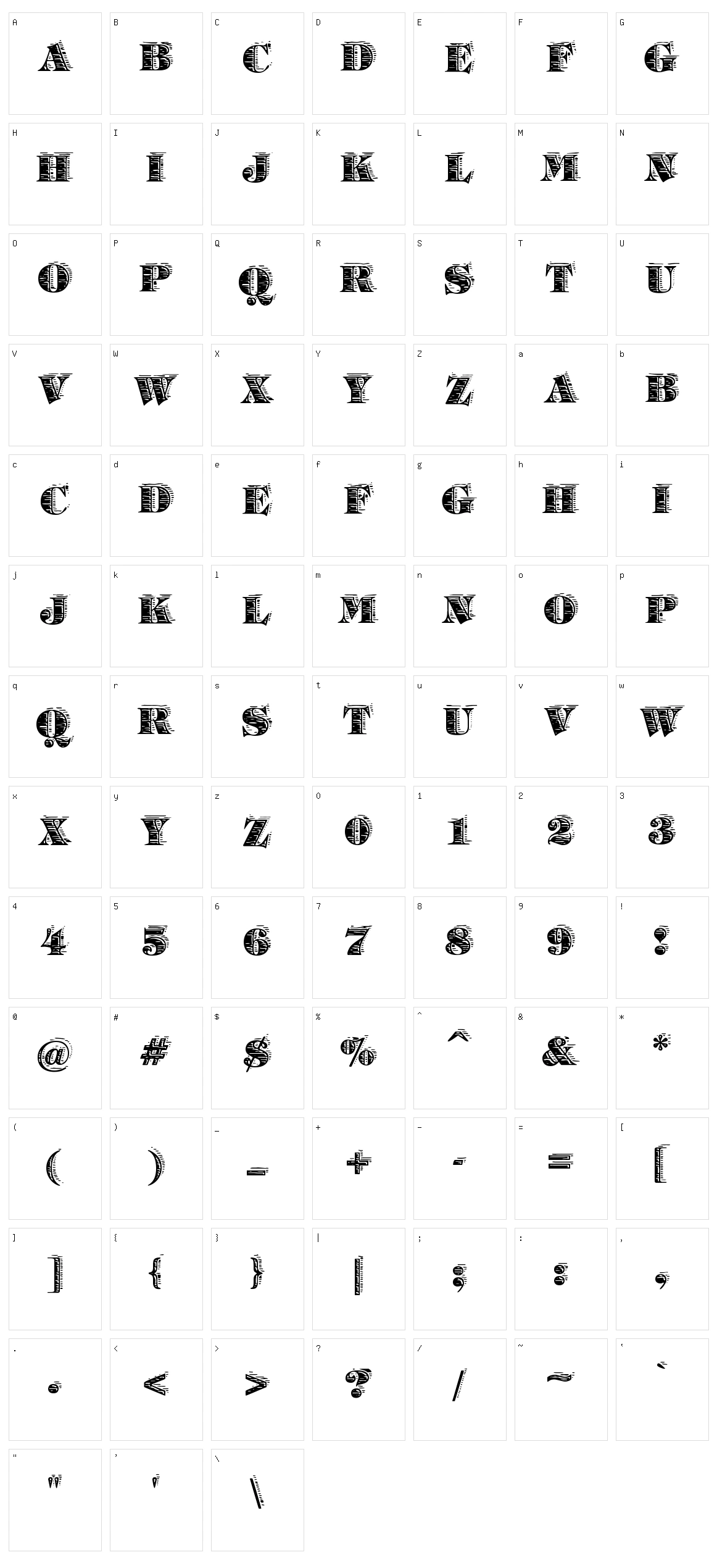
BARRELHOUSE
Barrelhouse is another font Ive built for work a Uresia mini-supplement called Caravel that Im finishing right now. Caravel is about a small wooden sailing ship with haunted sails, with little pokes into the privacy of her crew and sidebars on everything from the looms of the sea witches of Dreed to the rules for an old Uresian mariners drinking game. None of that make any sense? No worries; Barrelhouse carries the spirit of the thing in font form; the rest is just detail. Barrelhouse is a decorative all-caps font with a full keyboard character set.